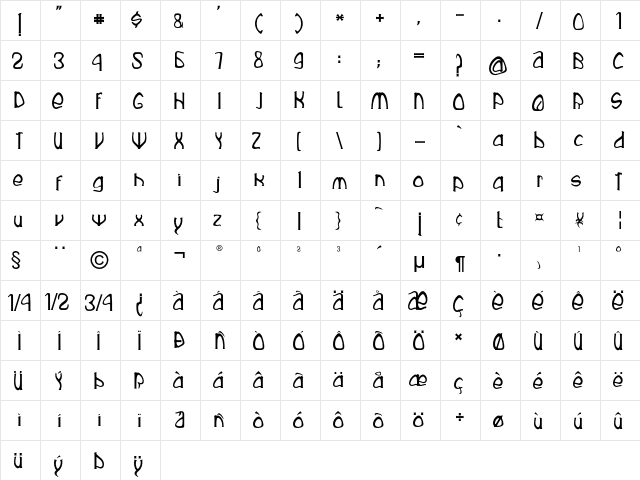
Rustika Regular
| Foundry | Alberto Villanueva |
| Designer | Alberto Villanueva |
Design Context for Rustika Typeface
Rustika is a composed and adaptable typeface that performs quietly and consistently across a wide range of design contexts.